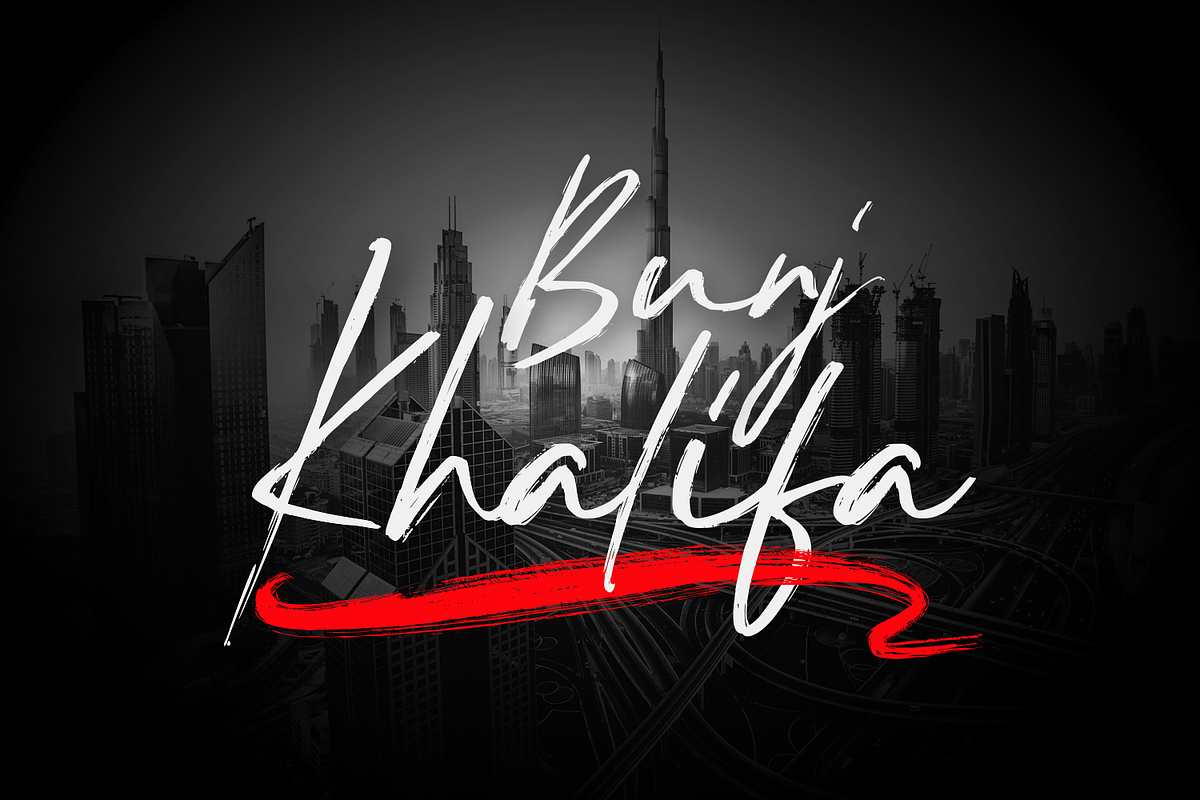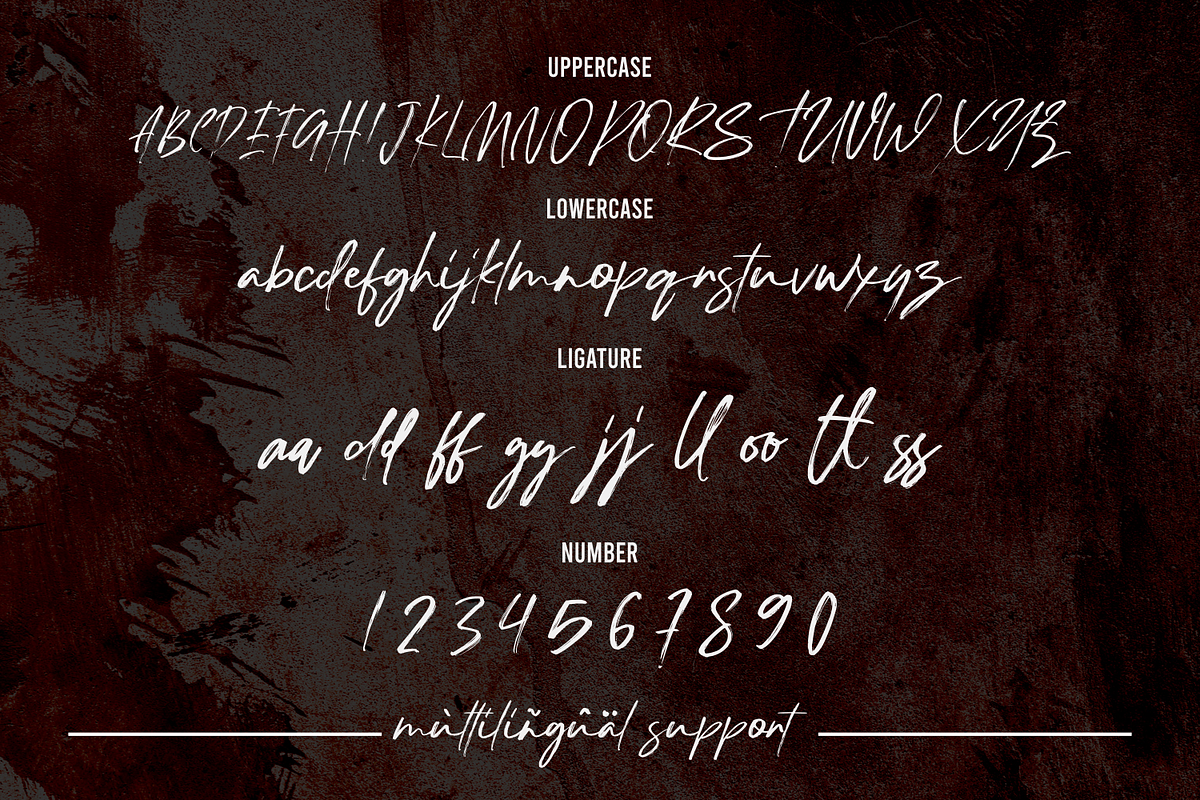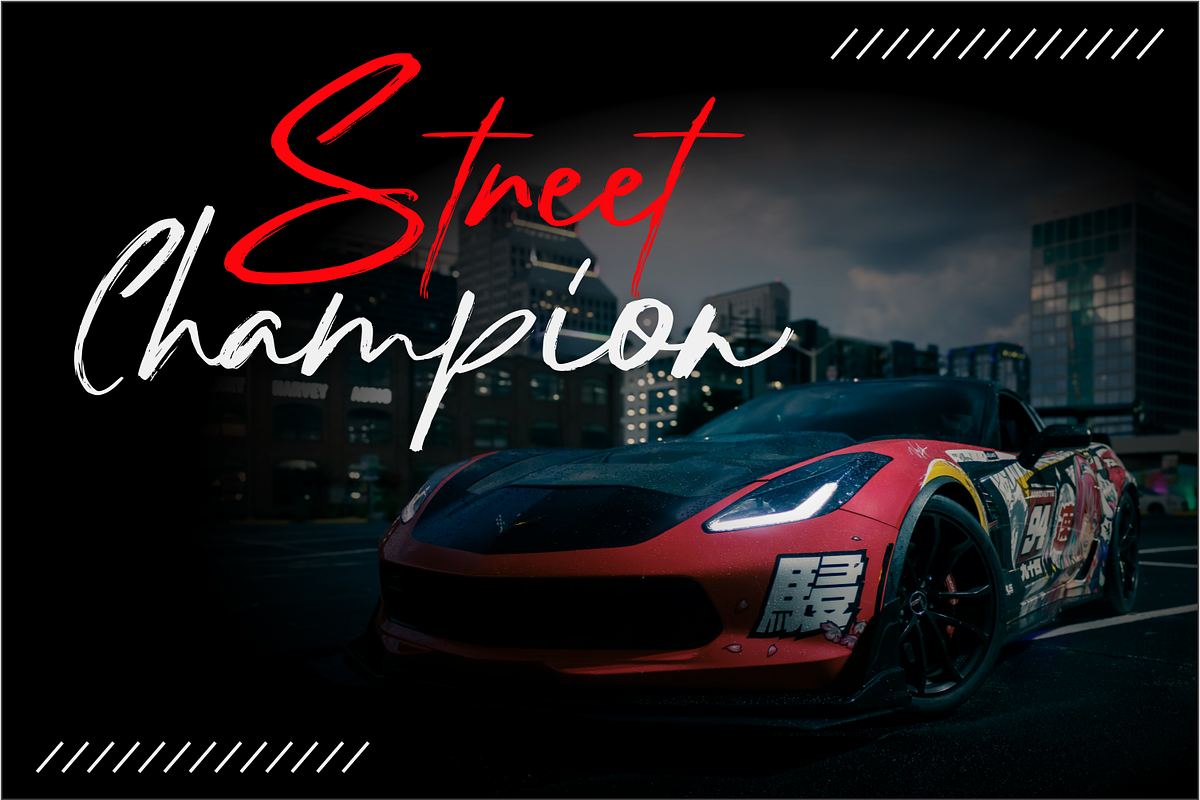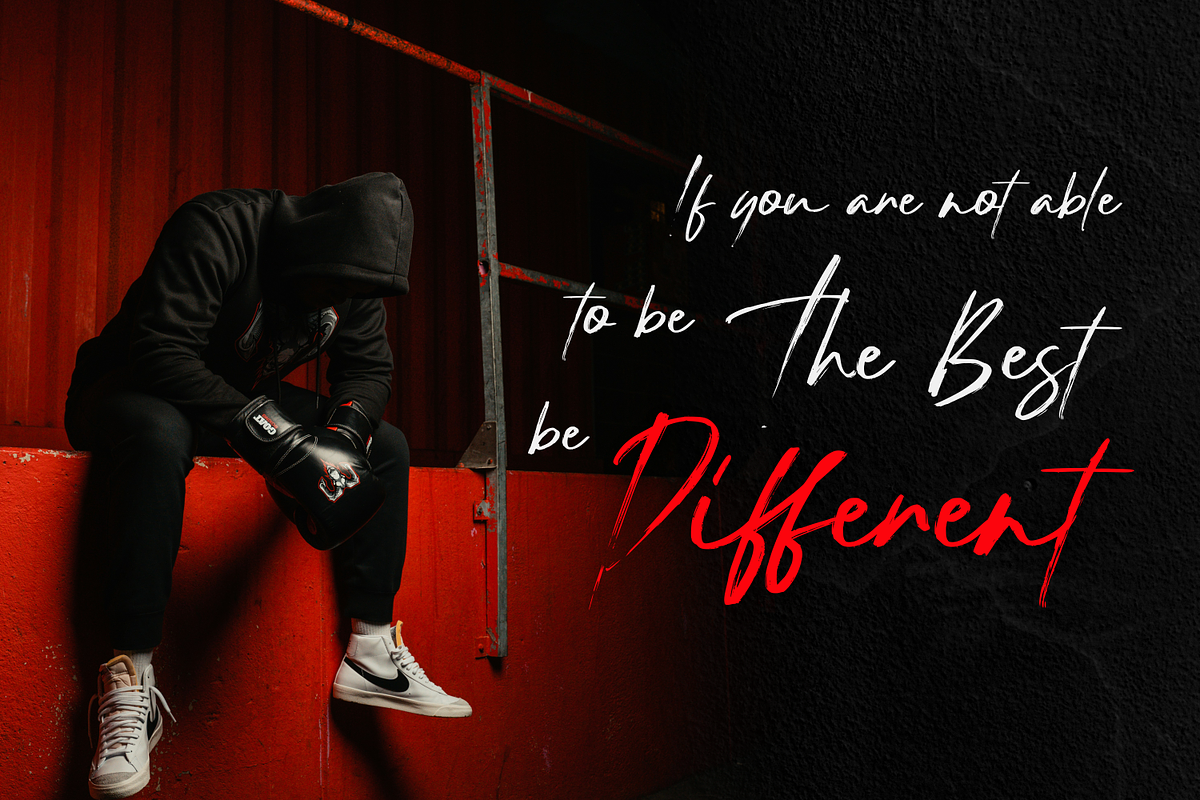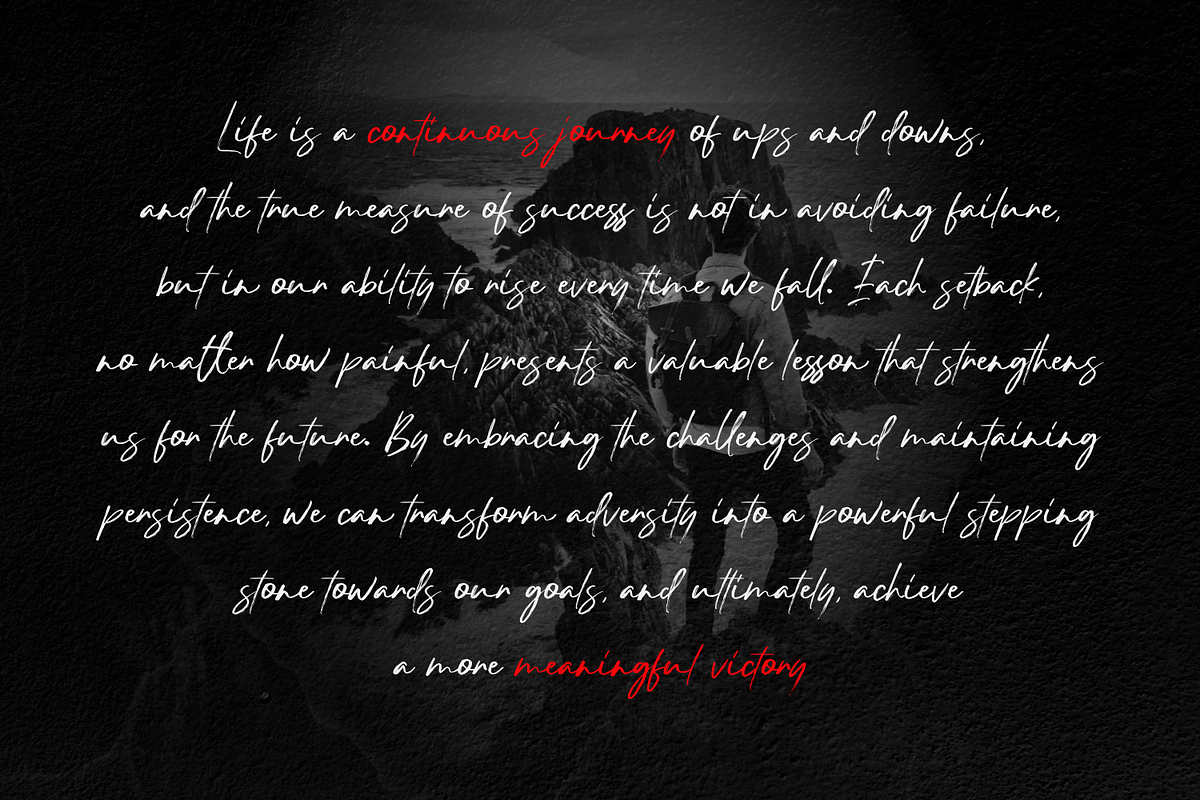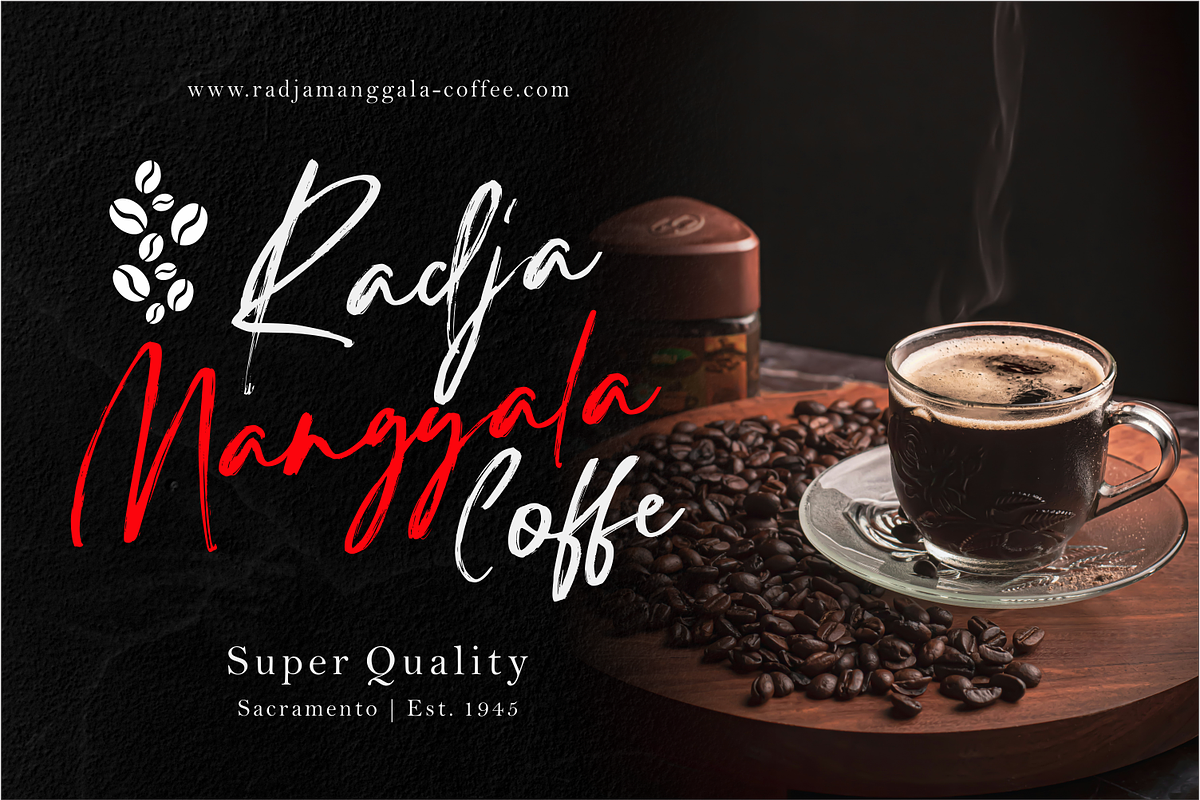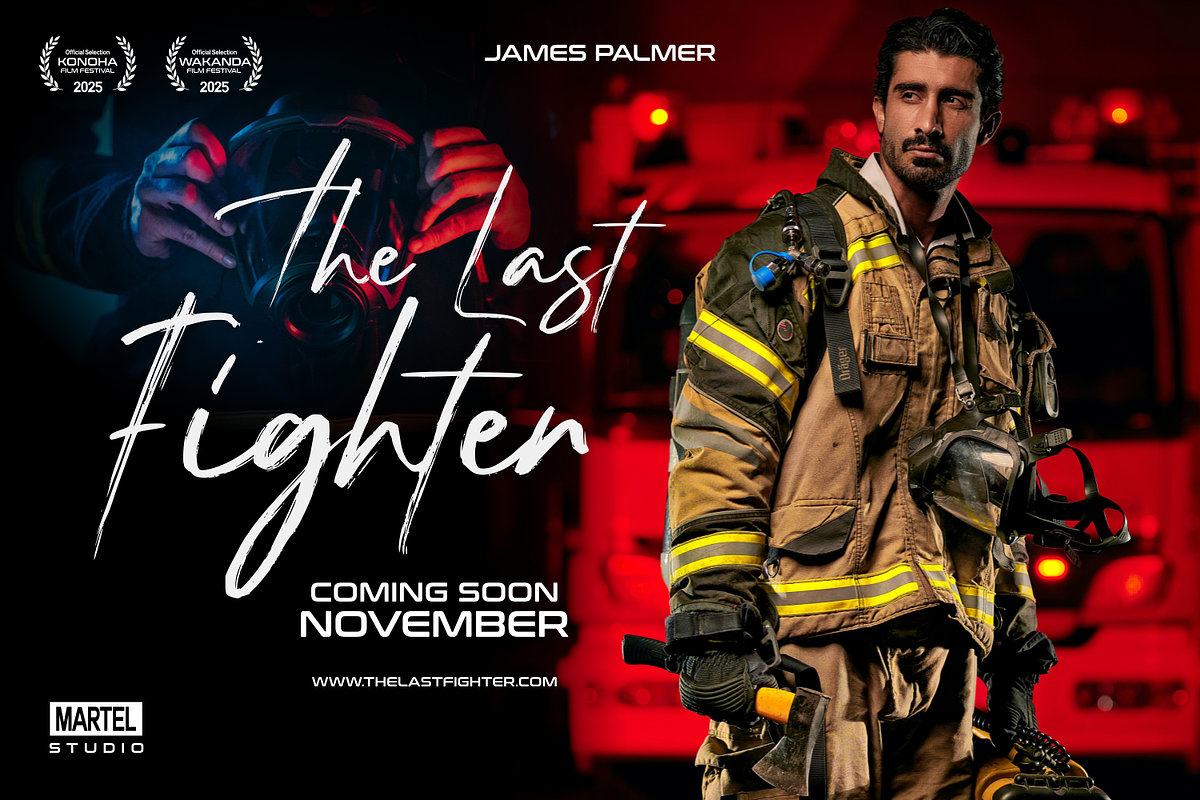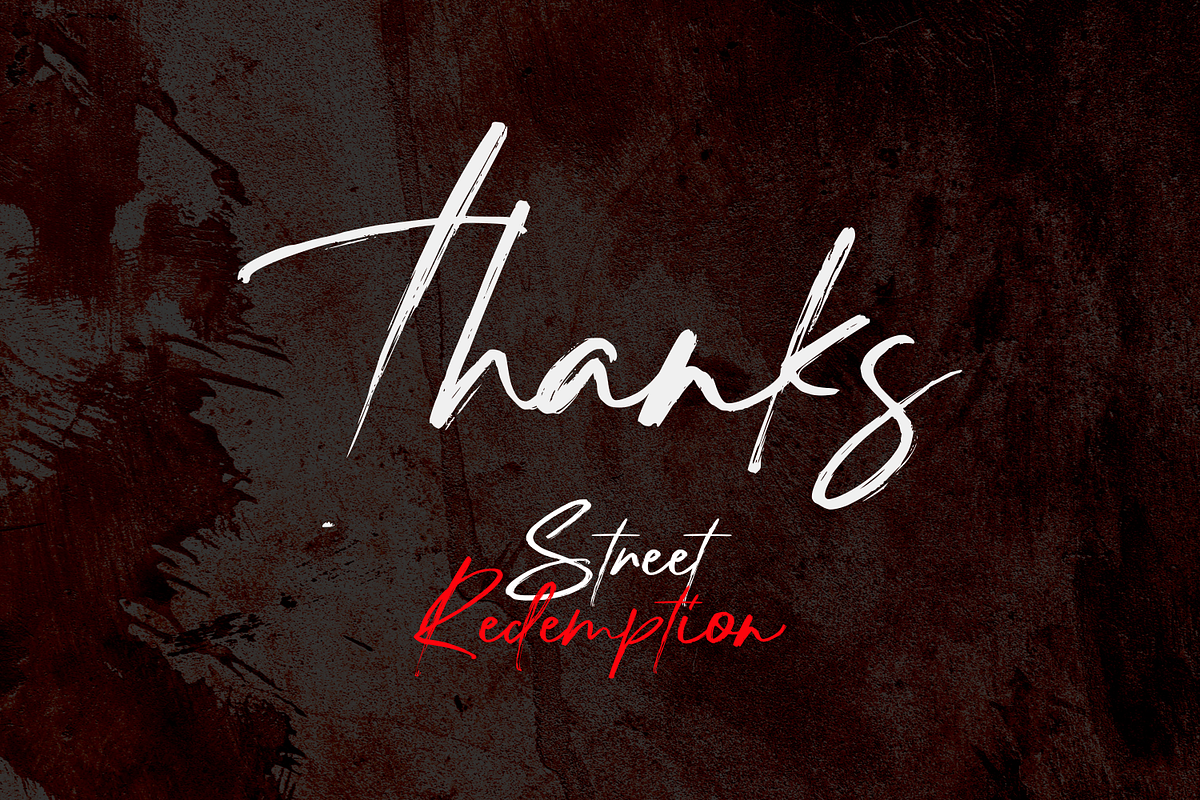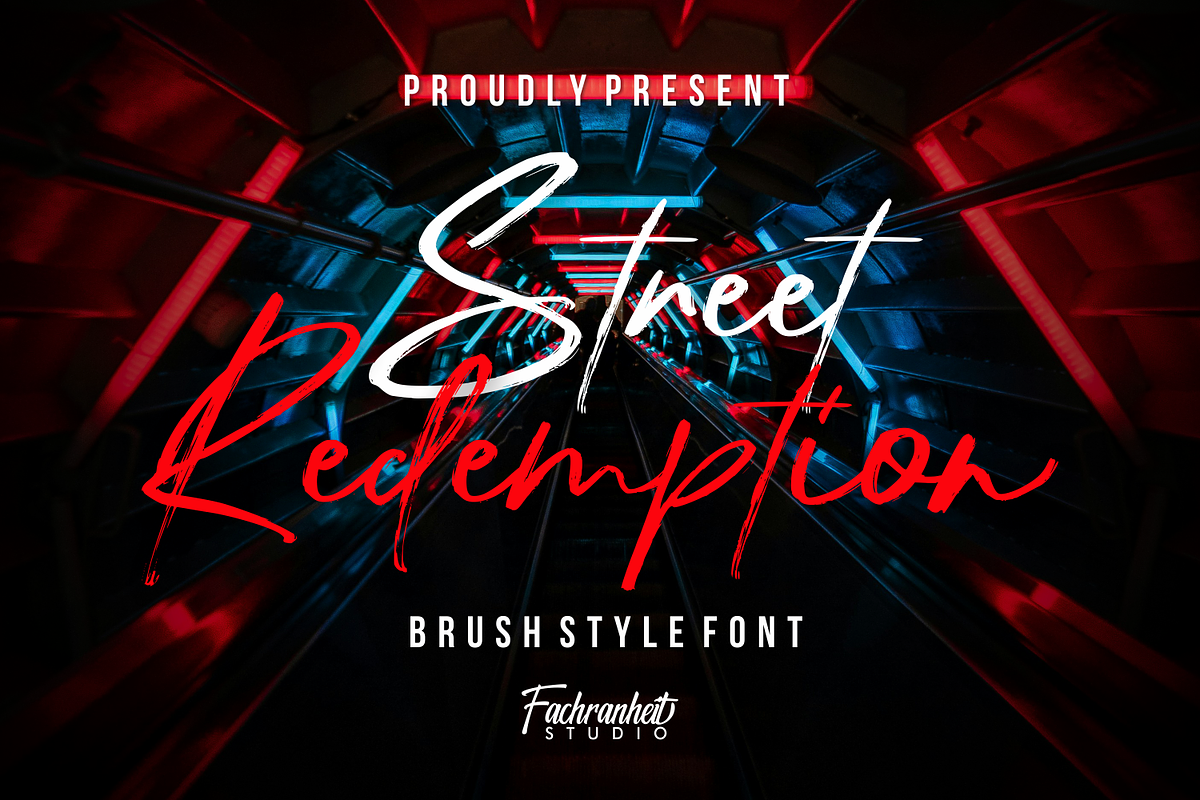
Street Redemption
Street Redemption is a brush style font. It can easily be matched to an incredibly large set of projects and use it for movie posters, flyers, headline, logo, logotype, packaging and much more!, so add it to your creative ideas and notice how it makes them stand out!